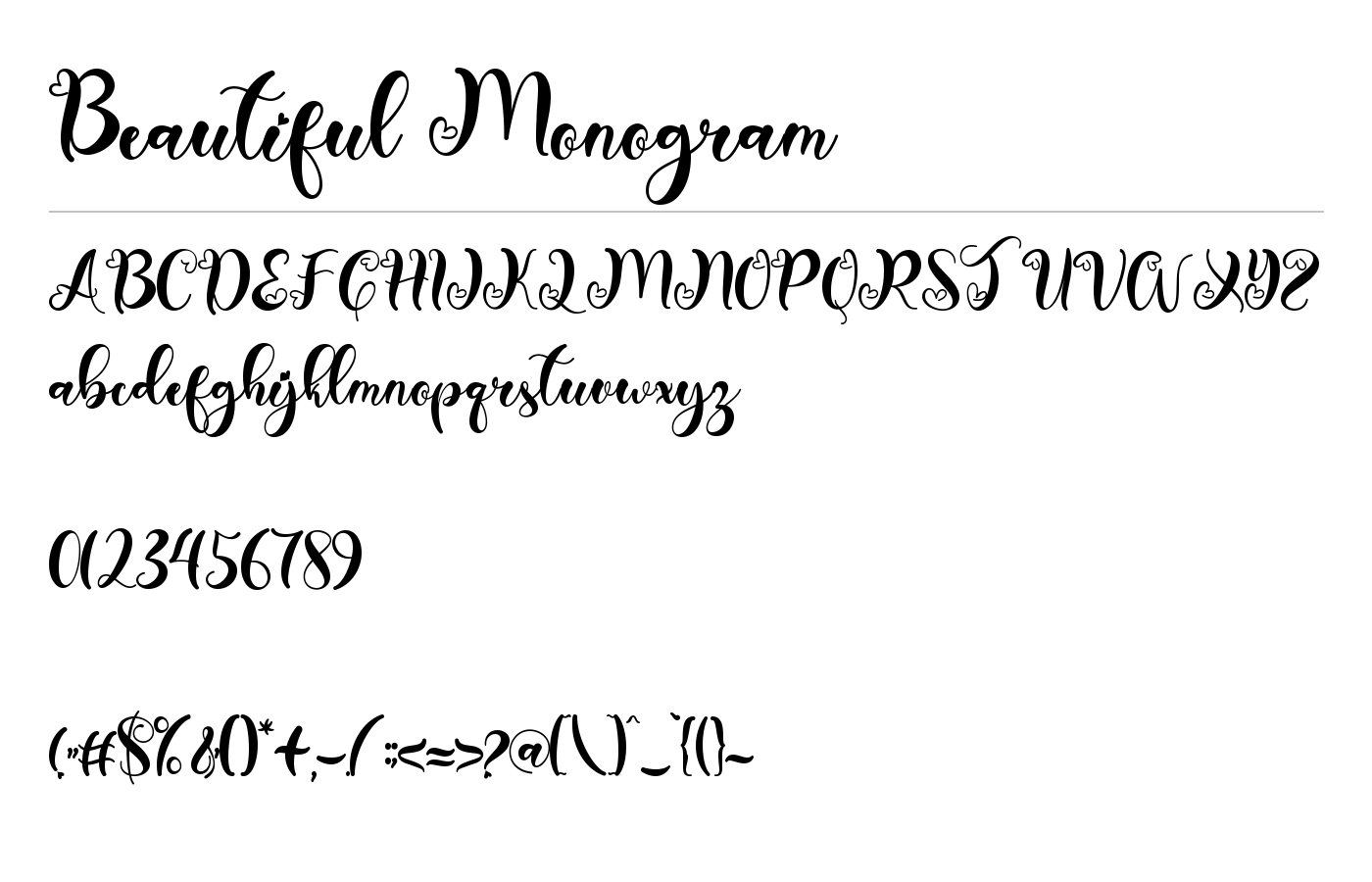
Beautiful Monogram Font is an elegant, script-style typeface featuring smooth, flowing strokes with playful heart-shaped flourishes on many characters. Its medium weight and moderate contrast create a warm and inviting feel, making it perfect for romantic or luxury branding, wedding invitations, and classy logos. This font shines in decorative and headline uses where its unique, handcrafted charm can truly stand out.
Beautiful Monogram Font
About Beautiful Monogram Font
| Font family | Beautiful Monogram Font |
| Designer | Yoga Letter 2022 (Isroni Yoga Prasetya) |